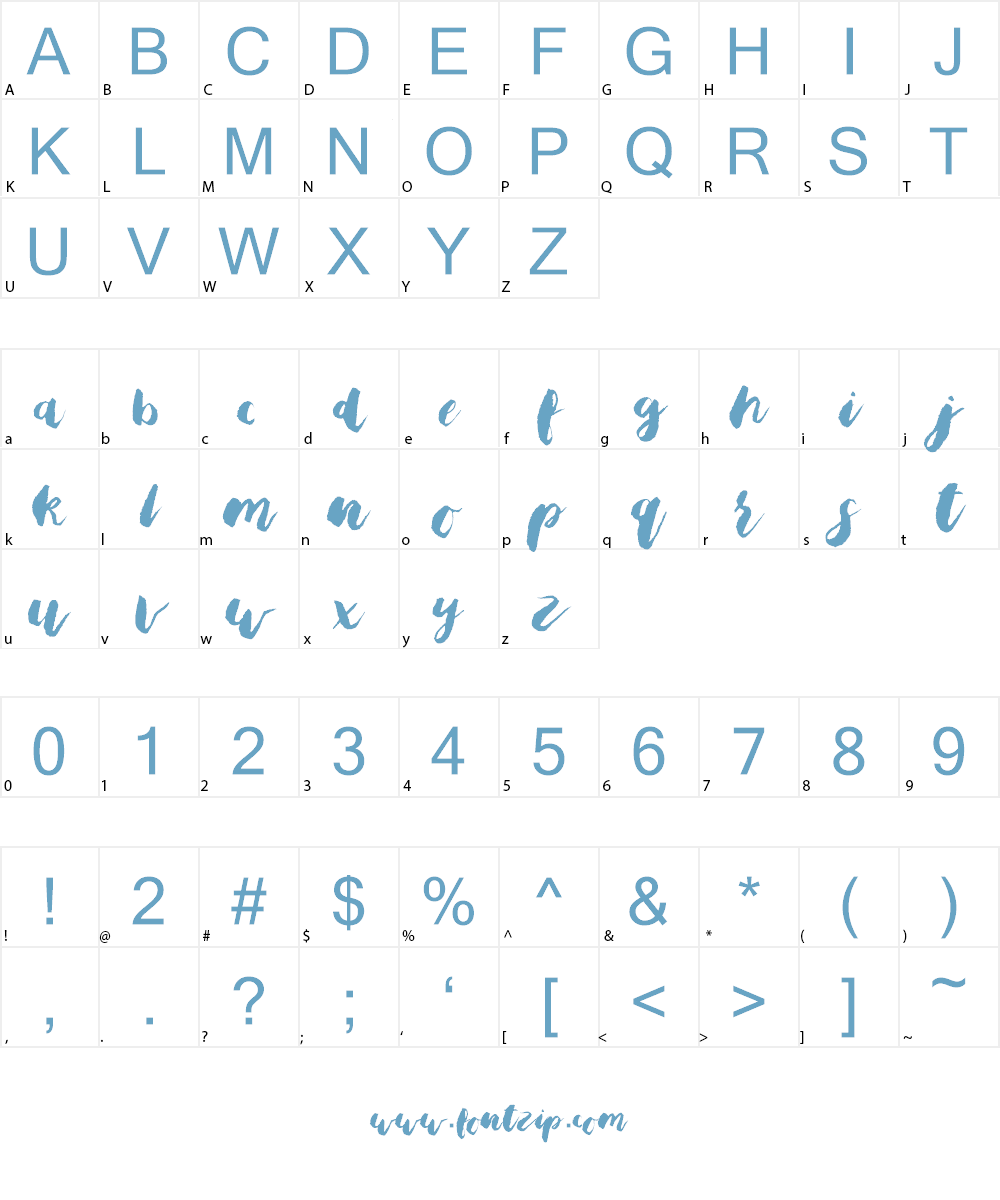
Bristle Brush Script Black is a modified version of our Bristle Brush Script Regular font. The dry-brush look and feel has been removed, leaving a thicker, more distinct brush script.
Bristle Brush Script Black features all lowercase letters, and alternate characters provided in the lowercase letter set on the f, n, q, s, u, and y.